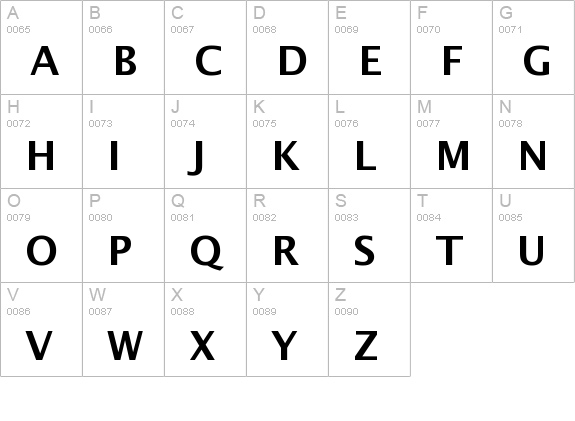
Lucida Sans Demibold Roman is a sub-bold, structured variant in the Lucida typeface family \xE2\x80\x94 well suited to sub-headlines and emphasised passages.
Lucida Sans Demibold Roman is a sophisticated and versatile font that exudes elegance and modernity. With its bold weight and distinctive Roman style, this typeface conveys a sense of strength and professionalism, making it ideal for a wide range of design projects. The clarity and readability of Lucida Sans Demibold Roman make it perfect for headlines, titles, and other prominent text elements. Moreover, this font is available for free download at FontsMarket.com, where users can easily access and utilize its unique features for their creative endeavors. Whether used in print or digital media, Lucida Sans Demibold Roman adds a touch of refinement and sophistication to any design. Download this exquisite font today and elevate your projects with its timeless appeal and exceptional quality.